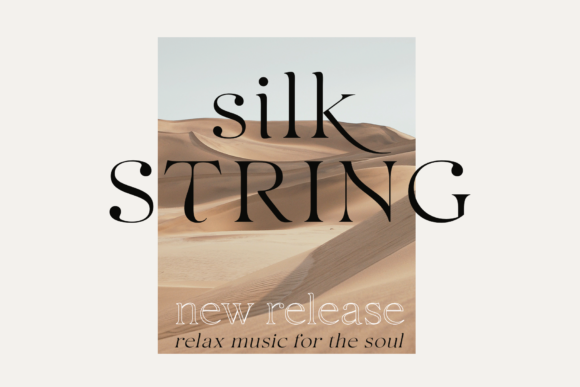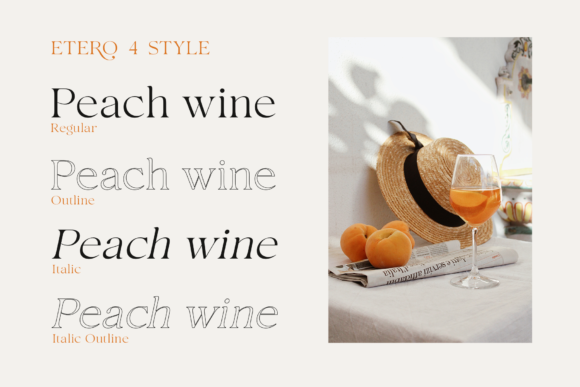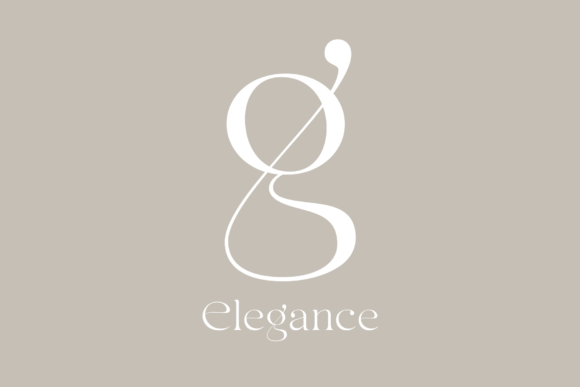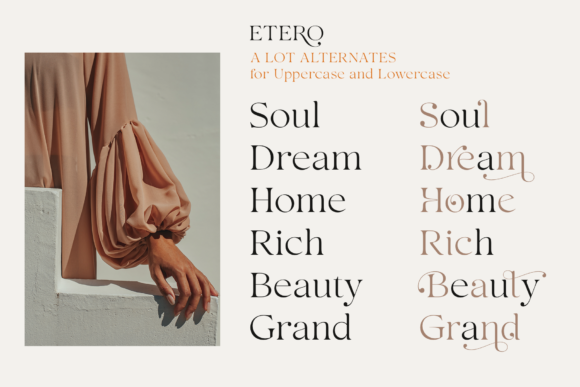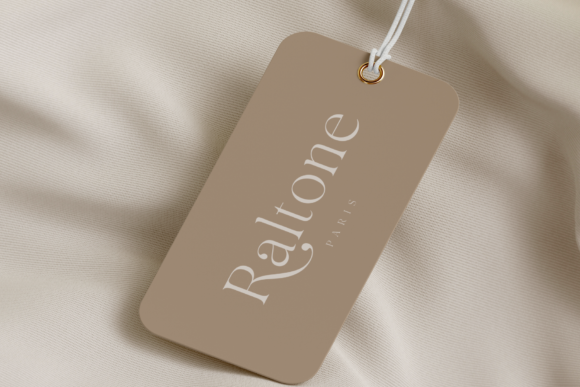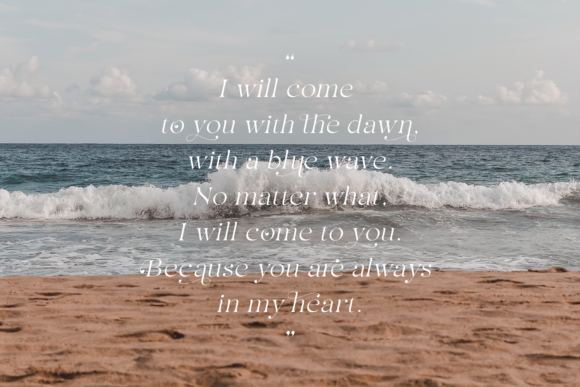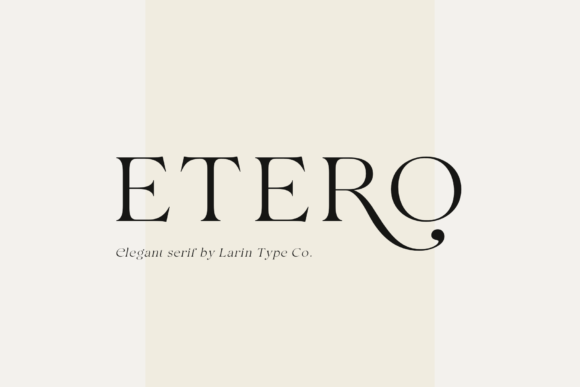
Etero Font: Elevate Your Designs with Elegance and Sophistication
In the world of typography, a font can make or break a design. For designers and crafters looking to add a touch of elegance and sophistication to their projects, Etero Font is an excellent choice. This modern and elegant serif font is perfect for a wide range of applications, from logos and brand products to wedding invitations, business cards, packaging, titles, and more.
What Makes Etero Font Stand Out?
Etero Font boasts a unique blend of classic and contemporary elements, making it a versatile and stylish addition to any design. Its serif design ensures readability, while its elegant lines and curves add a touch of sophistication. The font’s slanted style injects dynamism into your designs, making them more engaging and visually appealing.
Key Features of Etero Font
- Modern and Elegant Design: Etero Font features a sleek and contemporary design that will elevate your projects and make them stand out.
- Readable and Recognizable: The font’s clear lines and classic serif design ensure that your text is easily readable, making it perfect for body text and headings.
- Slanted Style: The slanted version of the font adds a dynamic touch to your designs, making them more engaging and visually appealing.
- PUA Encoded: Etero Font is PUA (Private Use Area) encoded, which means you can access all the glyphs and swashes with ease. This feature makes it simple to customize your text and add unique touches to your designs.
Use Cases for Etero Font
Etero Font’s versatility makes it suitable for a wide range of design projects, including:
- Logos and Branding: Create a lasting impression with a custom logo that exudes elegance and sophistication.
- Wedding Invitations: Make your wedding invitations truly special with Etero Font’s elegant and refined design.
- Business Cards: Stand out in the business world with professionally designed business cards featuring Etero Font.
- Packaging: Elevate your product packaging with a font that conveys luxury and quality.
- Titles and Headings: Use Etero Font to create stunning titles and headings that capture attention and add a touch of elegance to your designs.
Why Choose Etero Font?
With so many fonts available, why choose Etero Font? Here are a few compelling reasons:
- Unique Design: Etero Font’s modern and elegant design sets it apart from more traditional fonts.
- Versatility: The font’s versatility makes it suitable for a wide range of design projects.
- Easy to Use: Etero Font is PUA encoded, making it easy to access and use all the glyphs and swashes.
- High-Quality: The font is designed to deliver high-quality results, ensuring that your designs look professional and polished.
Etero Font is an exceptional choice for designers and crafters looking to add a touch of elegance and sophistication to their projects. Its modern and elegant design, readability, and slanted style make it perfect for a wide range of applications. With its PUA encoding and high-quality design, Etero Font is an excellent addition to any design toolkit. Whether you’re creating logos, wedding invitations, business cards, or packaging, Etero Font is sure to elevate your designs and make them stand out.